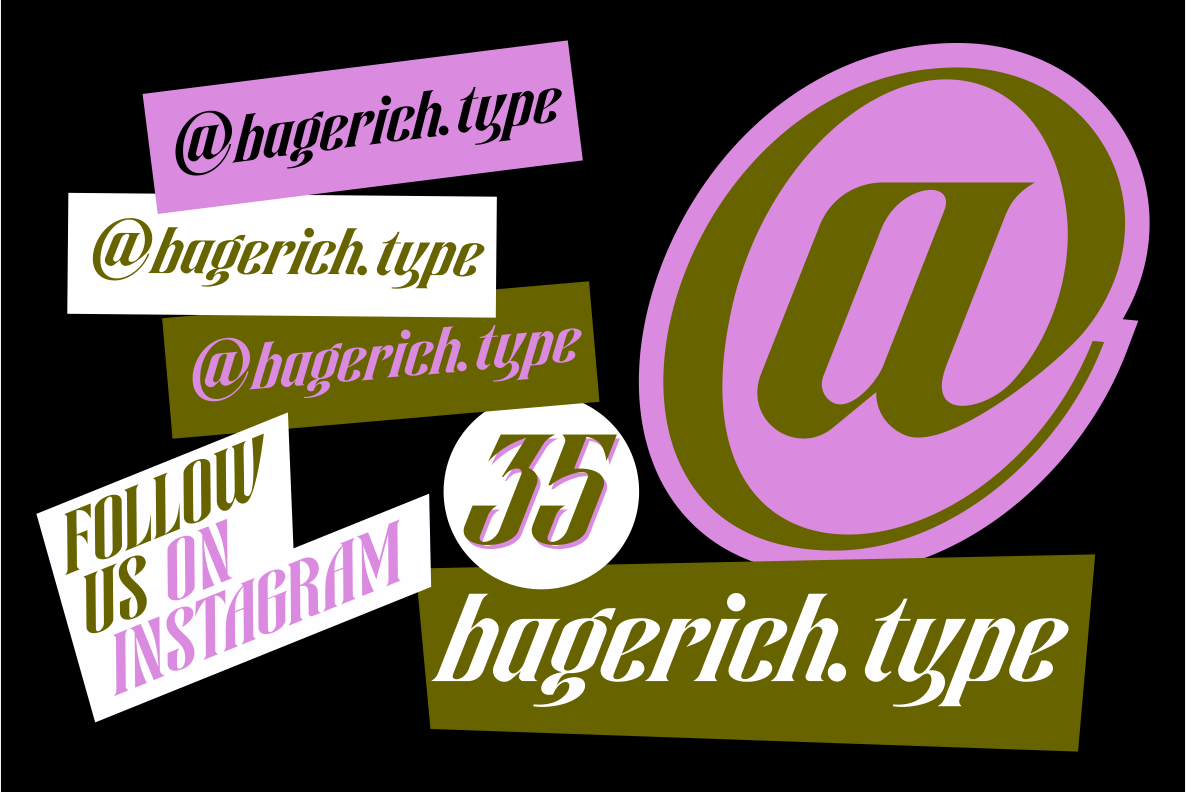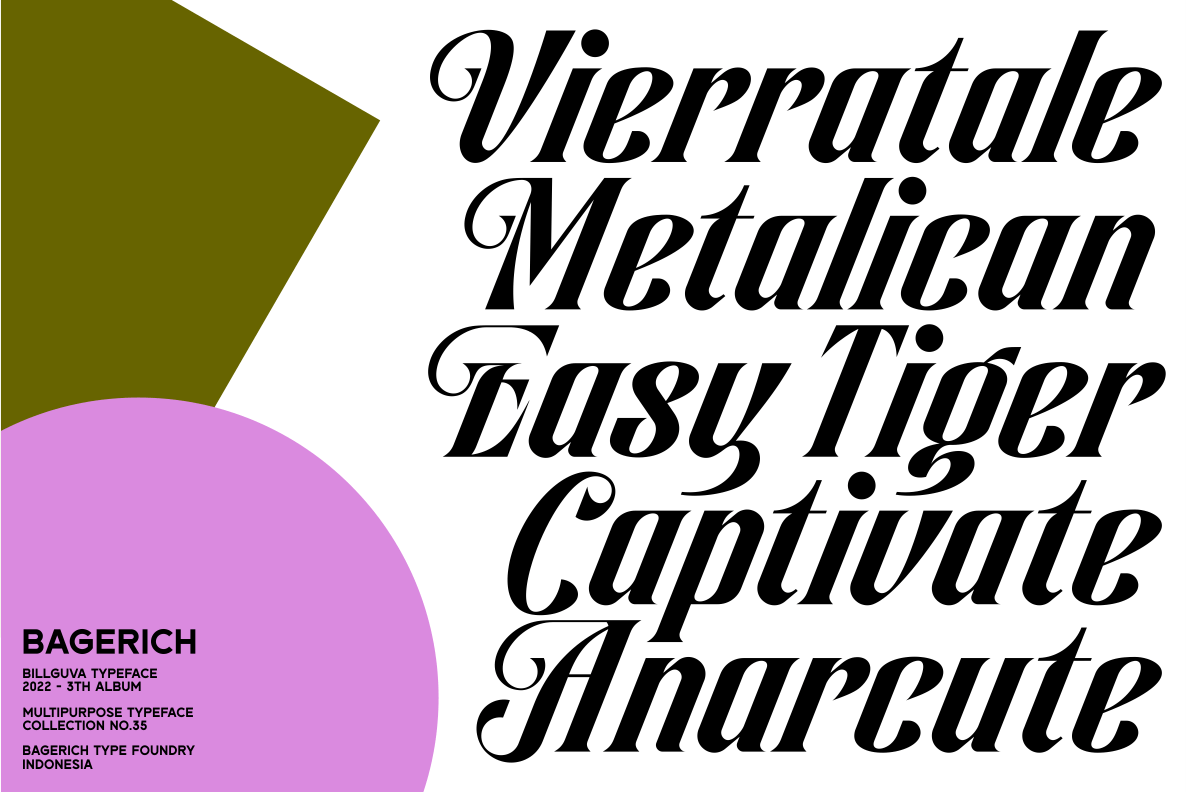
Billguva is a new beautiful & unique typeface from Bagerich Type Foundry,
designed by Reza Rasenda & Riska Candra Dewi.
The capitals have a set of unique alternates
that can be used to give more personality when needed.
Create unique & beautiful logotype,
use it as an elegant solution for your next magazine layout,
or choose Billguva for any graphics that
require a sleek look with a elegant flair.